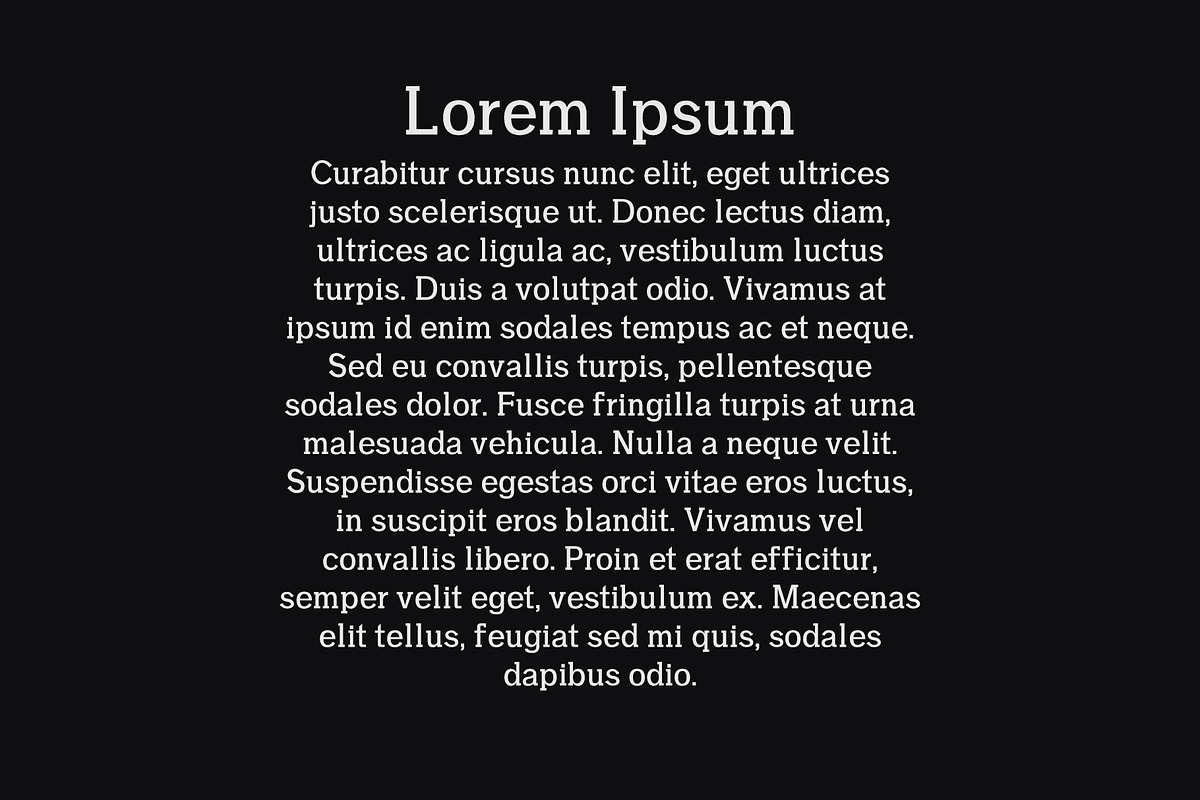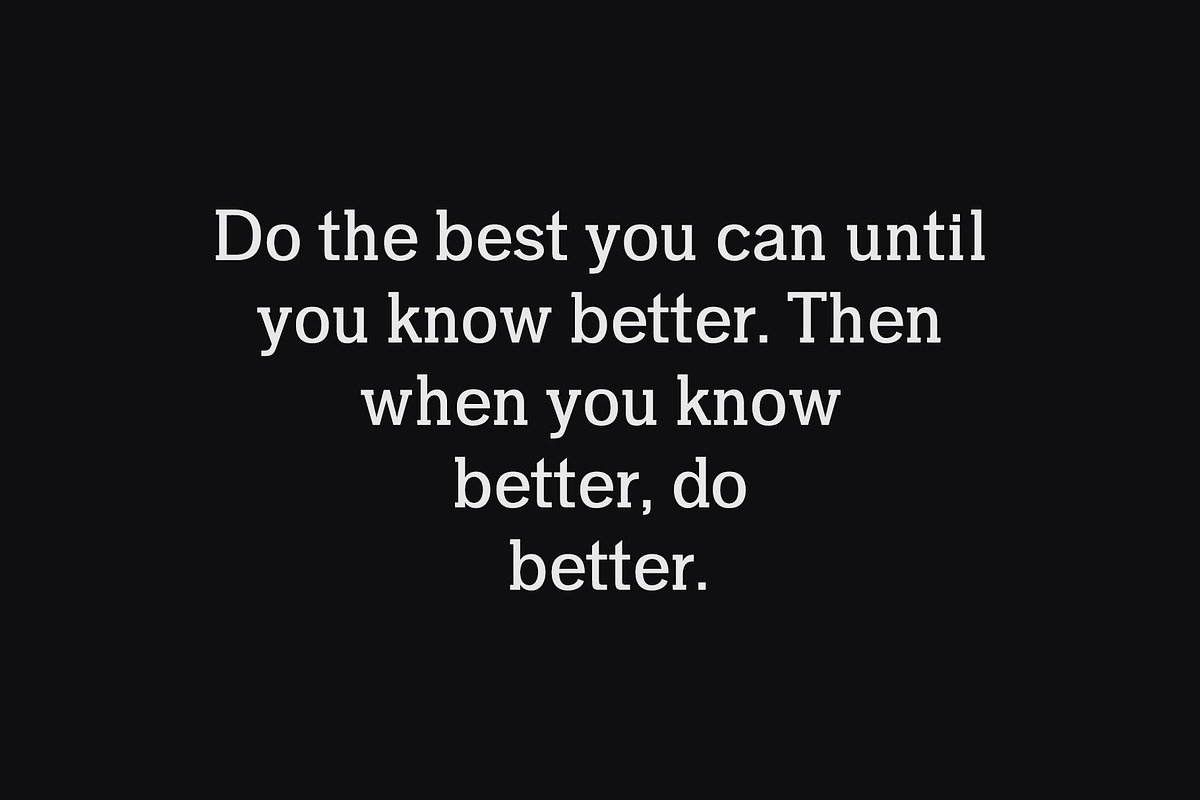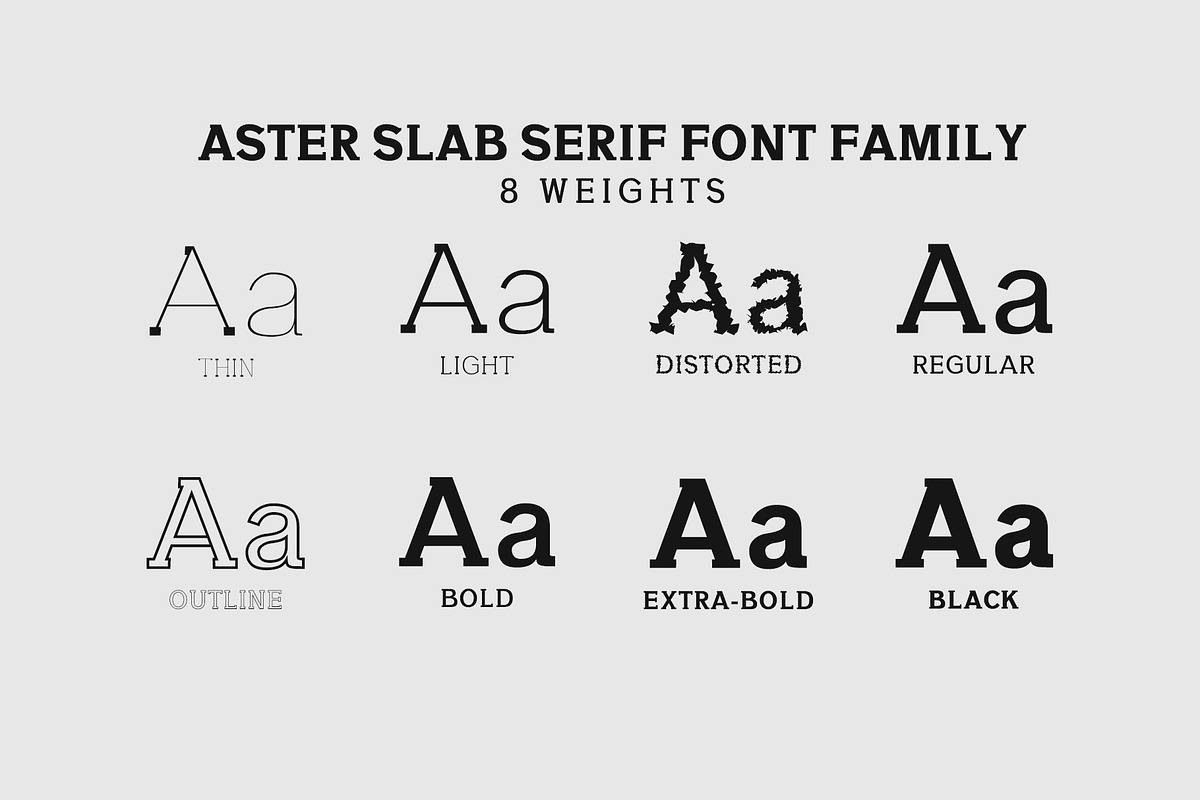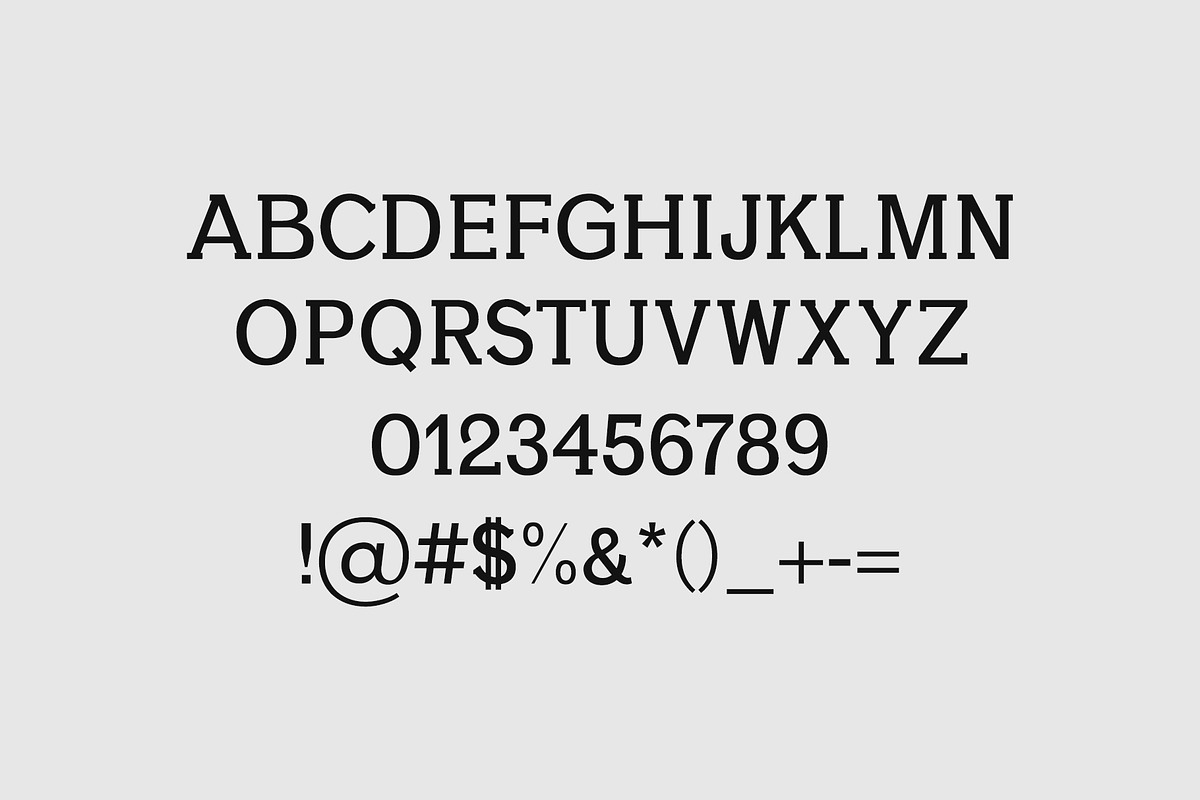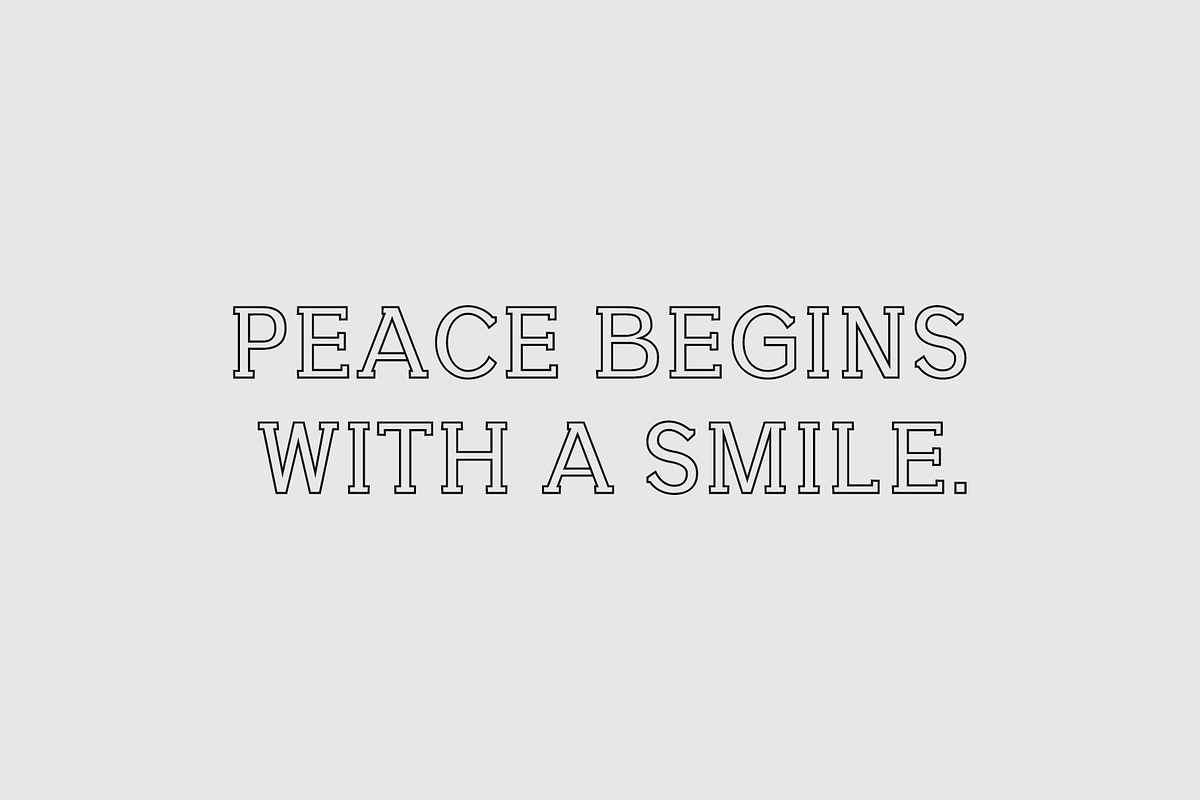
Aster Slab Serif 9 Font Family Pack
Aster Slab Serif 9 Font Family Pack by Creativetacos is a font selected for branding, posters, packaging, typography.
- Regular, Light, Thin, Black, Bold, Extra-Bold, Distorted, Light, Outline
Aster Slab Serif 9 Font Family Pack by Creativetacos fits naturally into Branding, posters, packaging, typography.